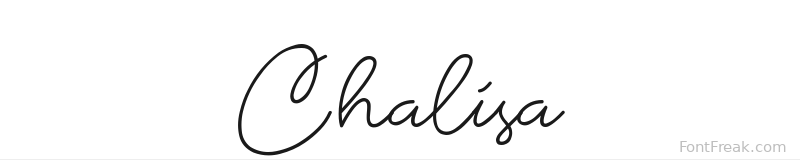
Chalisa
Chalisa, crafted by Kong Font, is a stunning script font that embodies elegance and sophistication. With its fluid, cursive style, this font features a moderate stroke weight and a seamless flow that creates a warm and inviting aesthetic. The letters are well-connected, ensuring a harmonious reading experience, while the slight contrast in thickness adds depth and character. The generous spacing between the characters enhances legibility, making it an excellent choice for both digital and print applications.
Ideal for a variety of uses, Chalisa shines in contexts such as wedding invitations, where its romantic style sets an enchanting tone. It is also perfect for branding projects, as its unique flair can help small businesses stand out in a crowded market. Restaurant menus can benefit from Chalisa’s stylish appeal, creating an inviting atmosphere for diners. Additionally, this font is well-suited for social media graphics, allowing content creators to convey personality and creativity in their posts.
The target audience for Chalisa includes graphic designers, small business owners, and content creators who seek a distinctive typeface to elevate their projects. Its charming design resonates with those looking to make a memorable impression through their visual communications.
What makes Chalisa truly stand out is its versatility combined with its artistic flair. The balance between readability and style ensures that it can be used across various mediums while still maintaining a sophisticated touch. For anyone searching for a font that enhances elegance and creativity, the Chalisa font free download offers an accessible option that elevates any design project. Embrace the beauty of Chalisa and let it bring a touch of sophistication to your work.